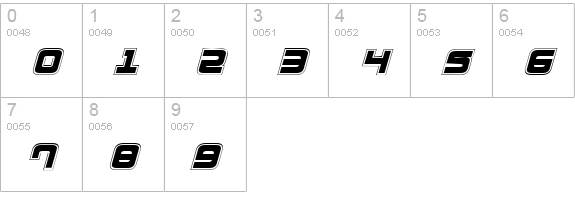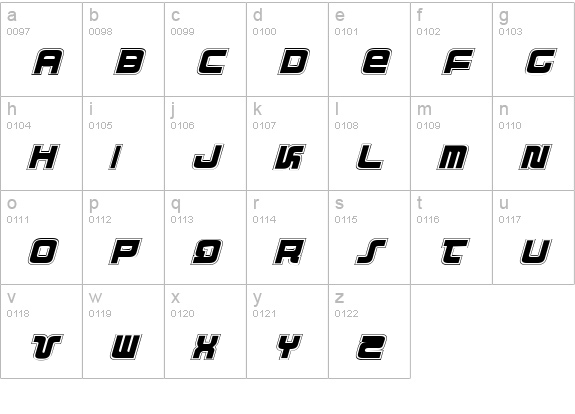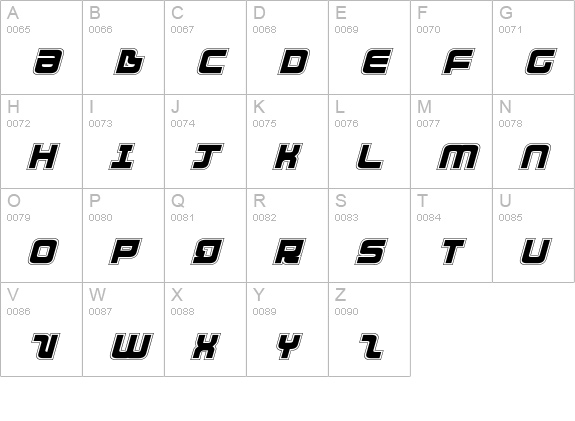
Direktor Academy Italic is a distinctive, italic variant in the Direktor typeface family \xE2\x80\x94 well suited to design and typography projects.
Direktor Academy Italic font exudes a sense of elegance and sophistication, making it the perfect choice for projects that require a touch of refinement. Its sleek and stylish design is sure to elevate any text, whether it be for a logo, branding materials, or editorial content. The italicized strokes add a dynamic flair, making your text stand out with a modern twist. What's even better is that Direktor Academy Italic font is available for free download at FontsMarket.com. This means you can easily access this premium font without any cost, allowing you to enhance your designs without breaking the bank. Don't miss out on the opportunity to add this versatile and eye-catching font to your collection today!